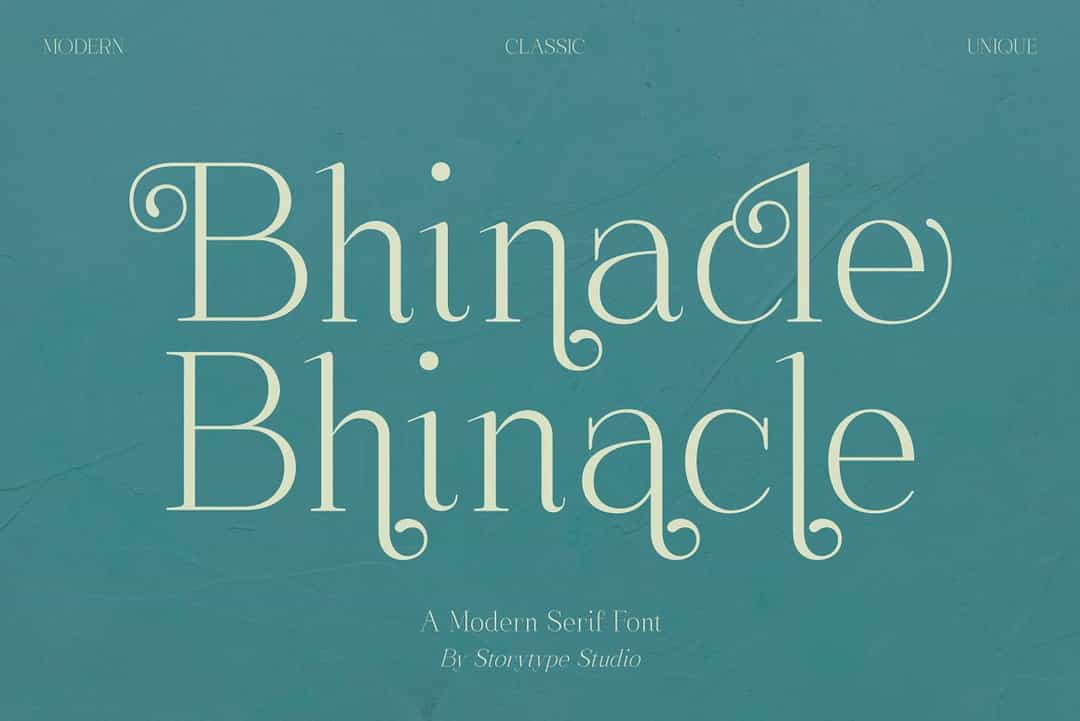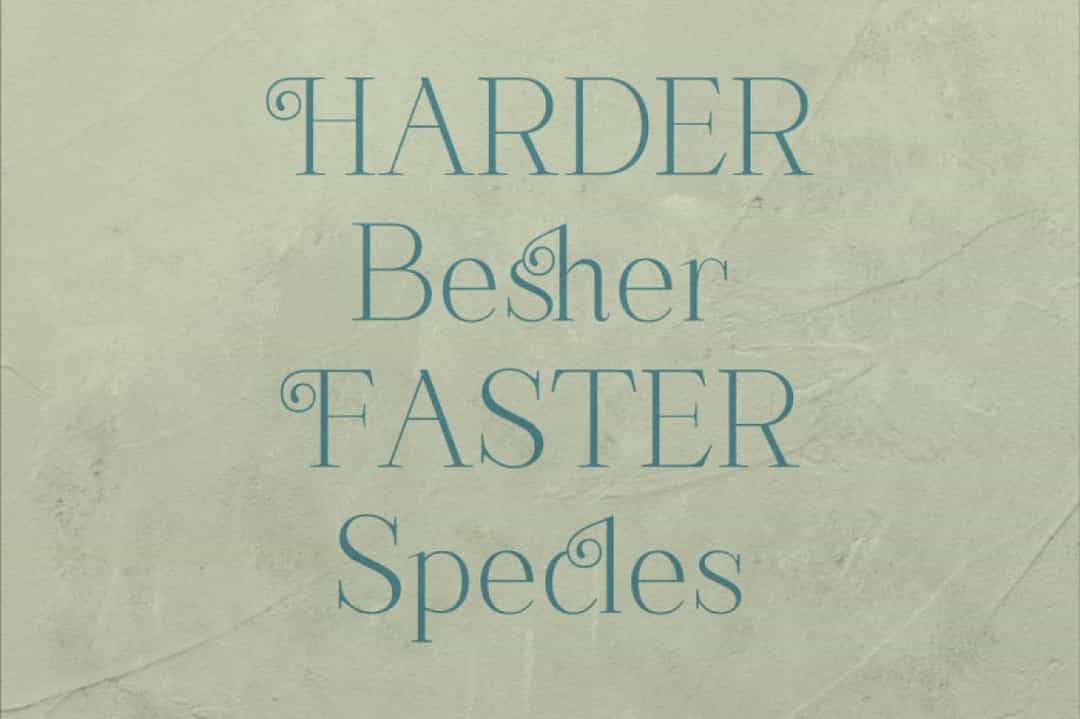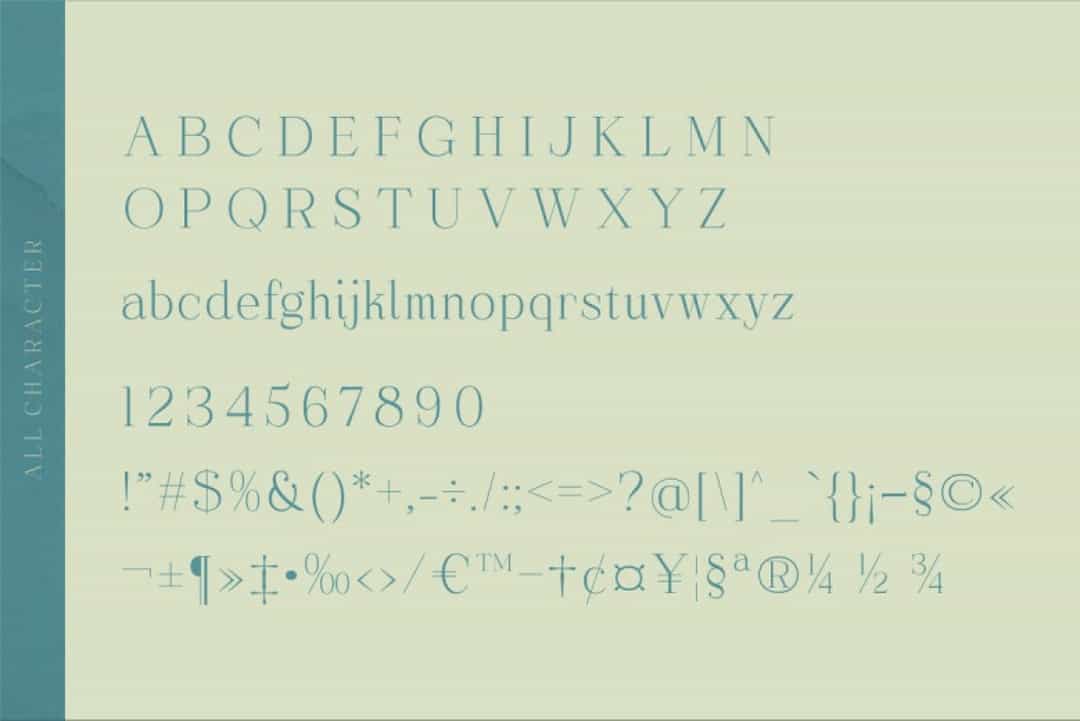
Storytype’s Bhinacle Font is a contemporary serif typeface with its own distinct style and modern look that makes for an impressive logo, movie title, fashion brand magazine article title, letter or quote and much more. This font makes an excellent addition to your sophisticated logo collection or used for movie and book titles as well.